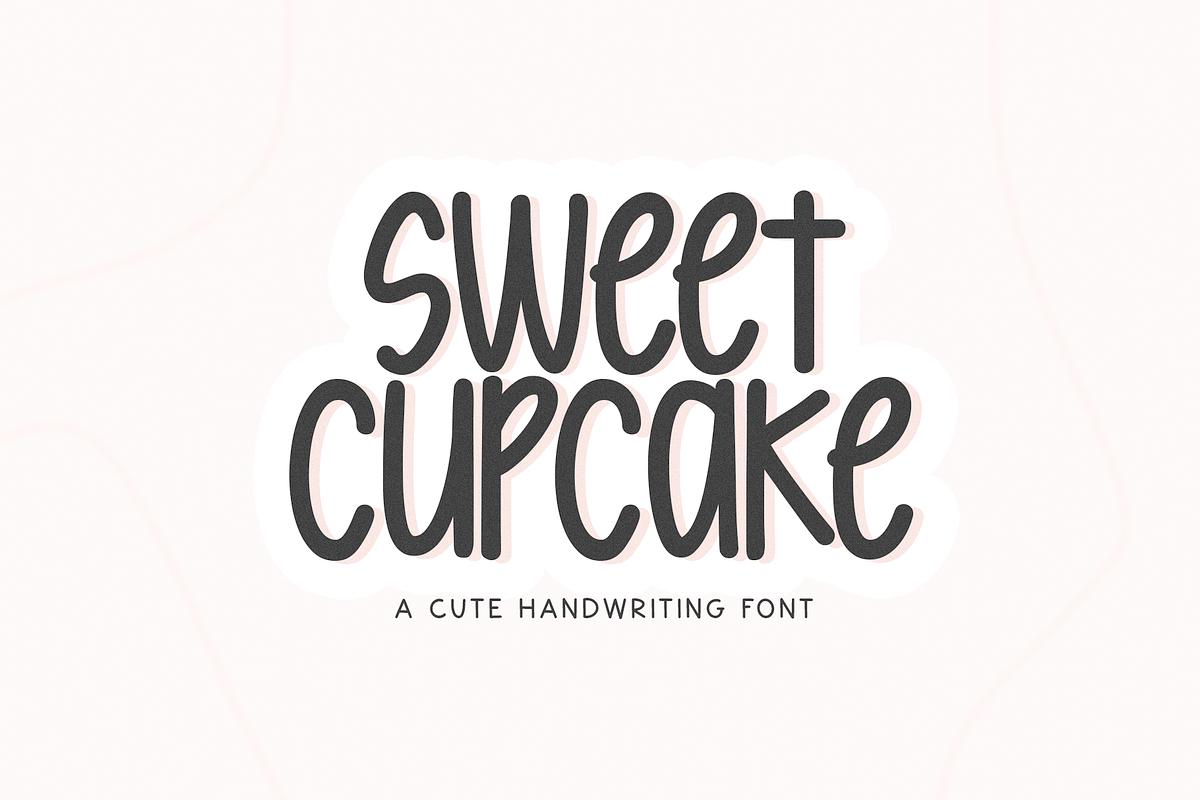
Sweet Cupcake | Cute Font Free Download
Please note, to use this font for commercial purposes, you must purchase the full version. Sweet Cupcake is an adorable and playful font that brings a fun, whimsical touch to any design. With its round, bubbly letterforms, this font is perfect for children's projects, event invitations, logos, and playful branding. Whether you're designing for a party, a sweet treat brand, or a cheerful greeting card, Sweet Cupcake adds charm and personality to your work. Test it out and enjoy free download access for personal use. Experience the sweetness of Sweet Cupcake | Cute Font Free Download before purchasing the commercial license. Add a fun, delightful vibe to your designs with Sweet Cupcake.